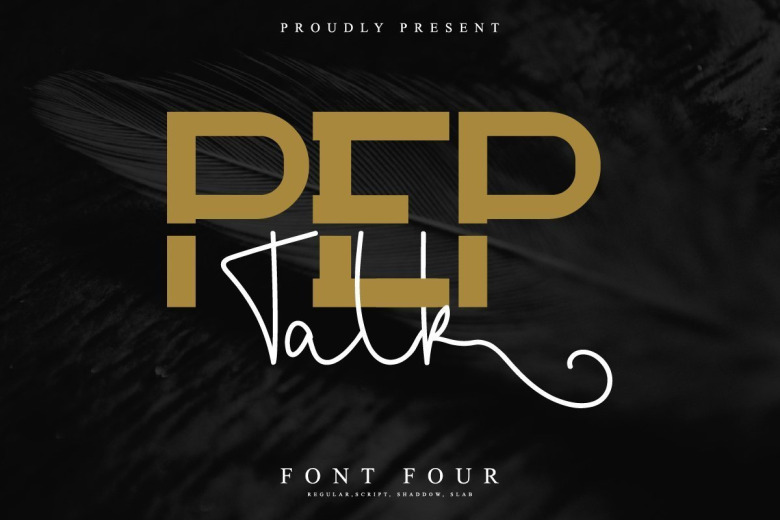
Pep Talk Font Duo
Pep Talk Duo is a new modern font family with sans and script handwriting signature. It has a fresh, elegant, natural and stylish glyphs. Pep Talk will be perfect for branding, logo, photography and signature. It is so elegant, classy, strong and beautiful.